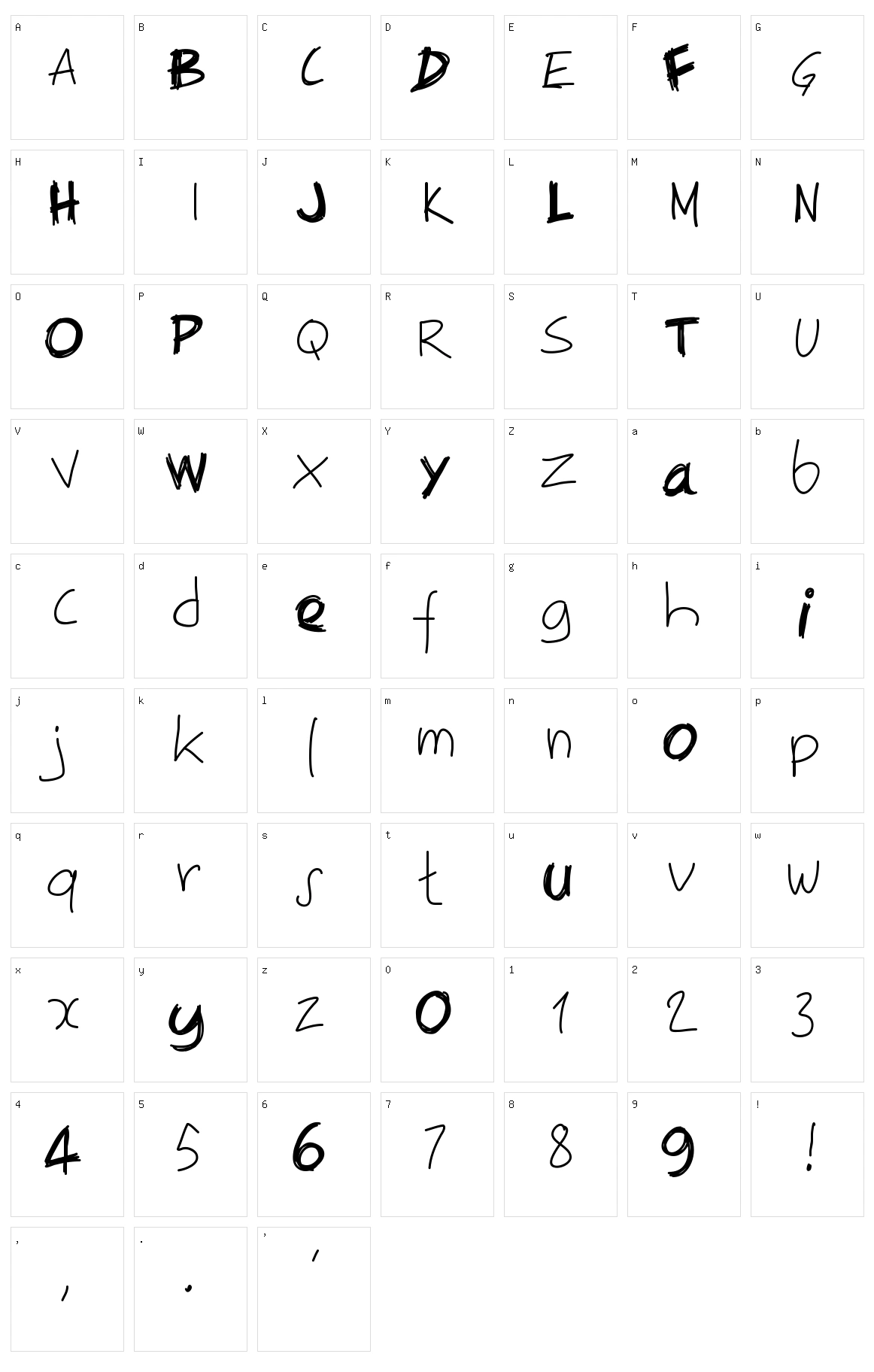
The free font PW Irregular is carefully designed by Peax Webdesign, showcasing a thoughtful balance of creativity and usability and falls under the Trash font style. When you download the ZIP file, it contains only 14.36 KB of font files, making it lightweight and quick to download. Please review the license details below to understand permitted usage and distribution rights. If license information is not available, we recommend using this font for personal projects only or contacting the author directly for commercial usage permissions.